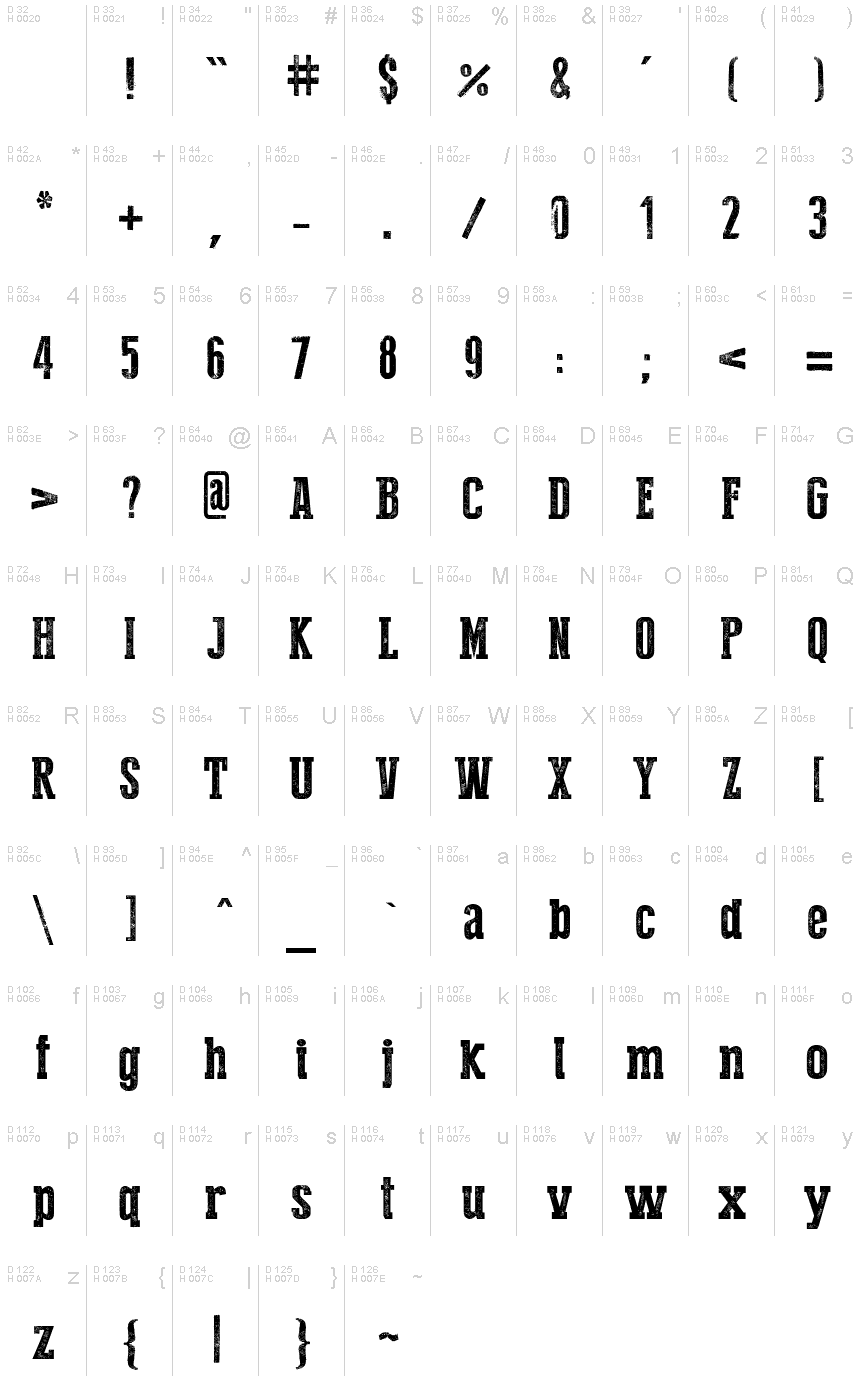
Press Style Serif
Press Style Serif, designed by Galdino Otten, is a captivating display font that brings a touch of vintage charm to any project. With its eroded serif style, this font exudes authenticity and character.
Ideal for creating eye-catching headlines, logos, and posters, Press Style Serif adds a unique twist to branding projects or editorial layouts. Its extra-condensed width allows for efficient use of space while maintaining legibility.
Give your designs a nostalgic edge with Press Style Serif and transport your audience to the bygone era of print media.